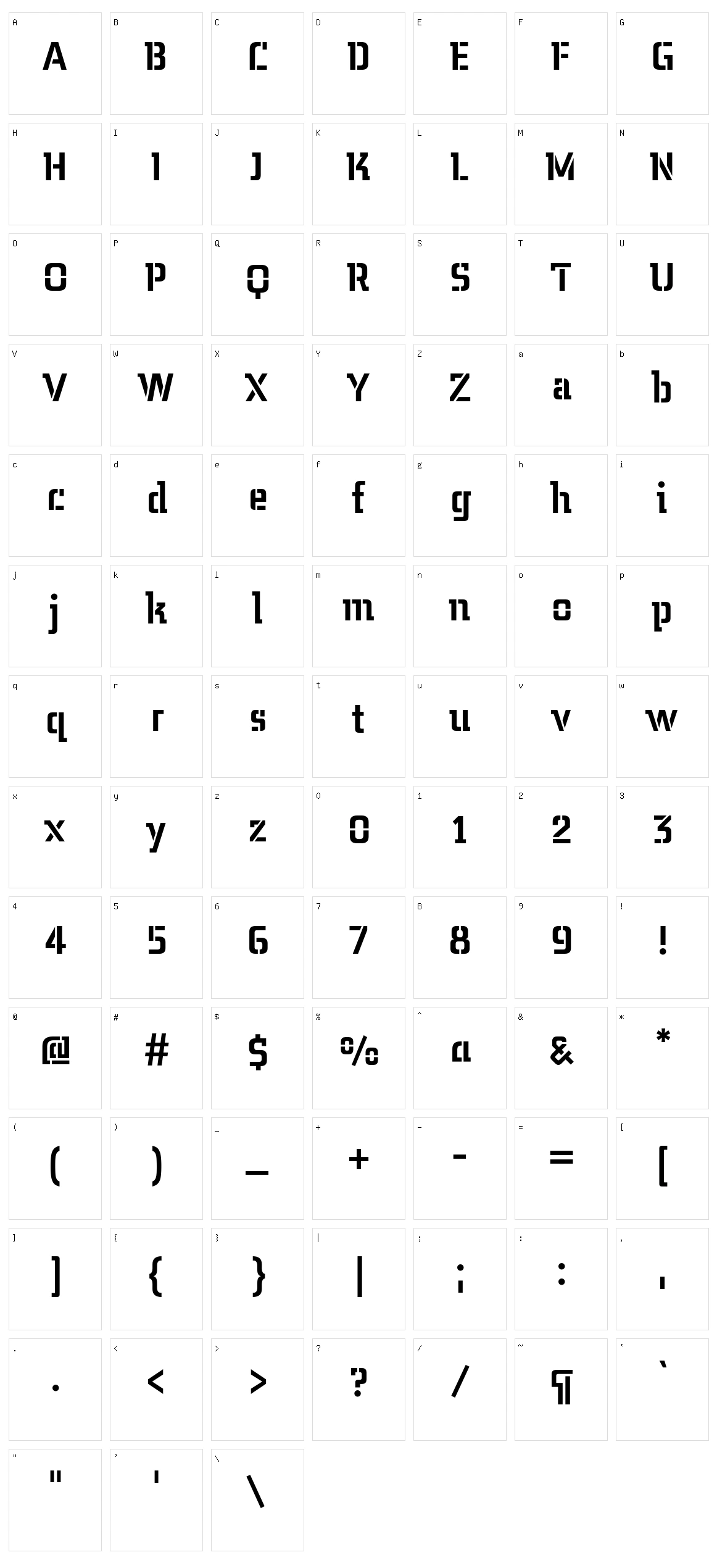
MIDNIGHT KERNBOY from Sentinel Type, designed by James Arboghast
The slab serif, or egyptienne type style, was introduced around 1815 by Vincent Figgins; at the time it was considered the most brilliant typographic invention of the 19th century, and the style quickly established itself as a favorite for headline and poster work. George Trump's City (1930) marked the end of classicism in Egyptienne type the same year it started -- with the pure geometric forms of Memphis (1930), proving once again that classical periods in art never last long...
Or failing a post-modern ironic sense of humor, one might try to reform the monoline squared egyptienne by restructuring it and selectively knocking off serifs.
Midnight Kernboy avoids City's somewhat homogeneous letter treatment with simplified structures and cunning serif omissions. The result is an elegant semi-serif typeface with a minimalist contemporary feel leaning toward futurism.